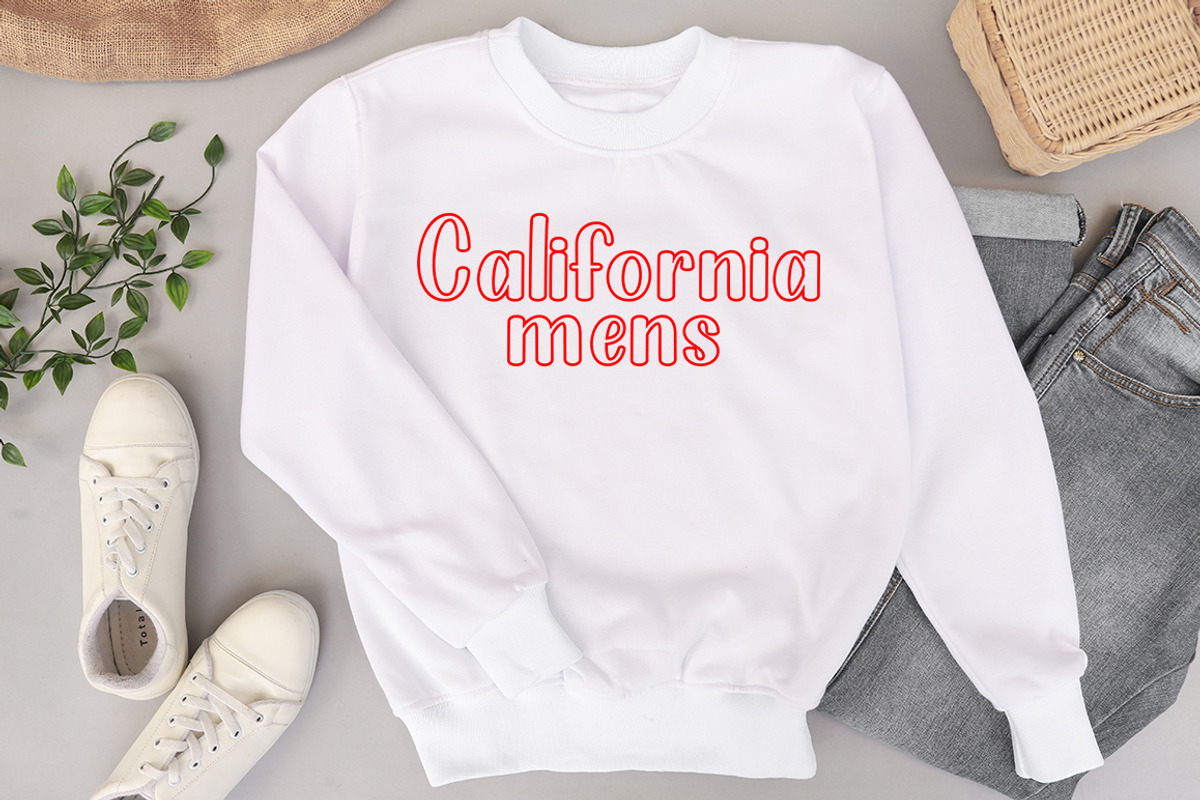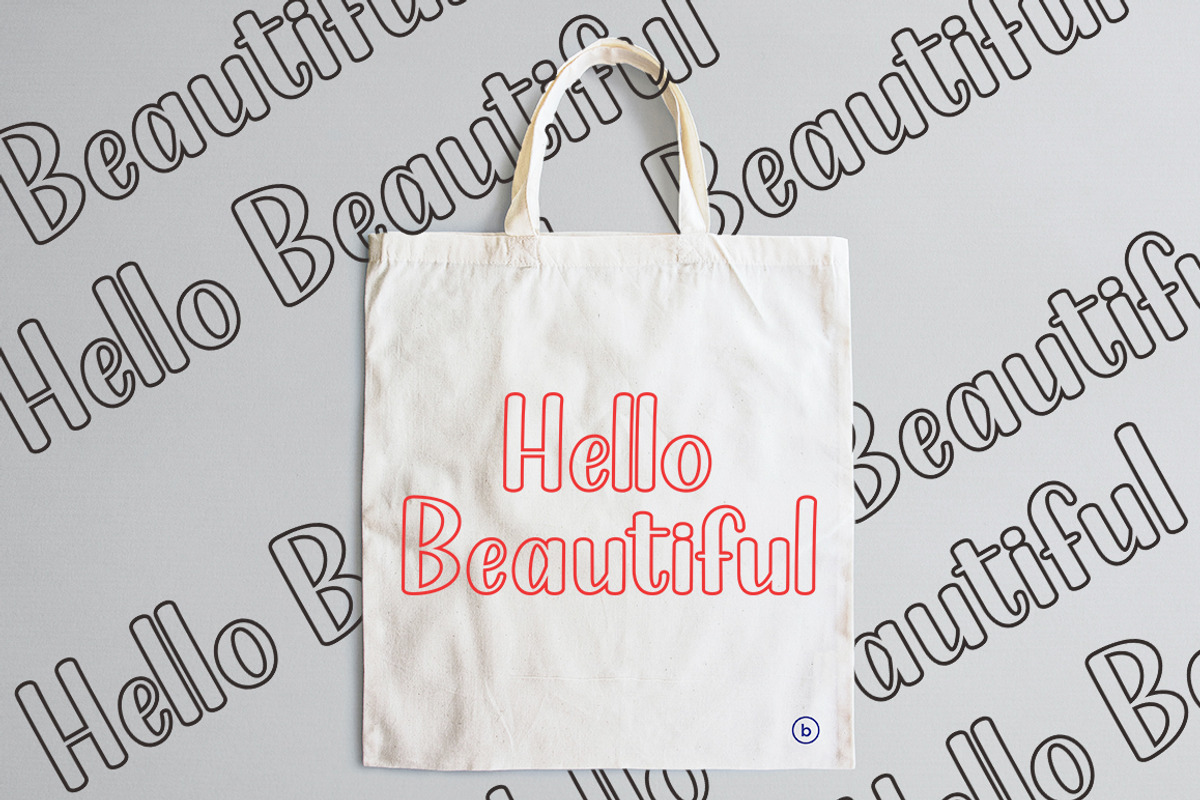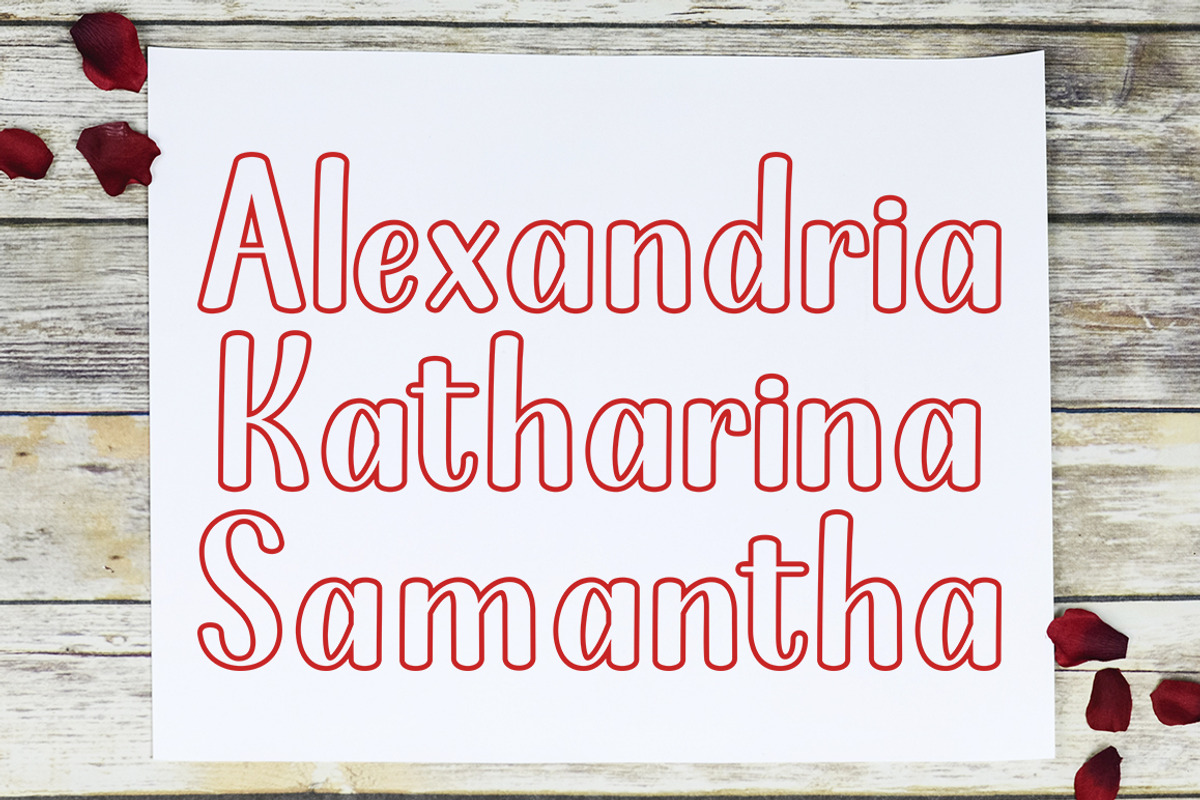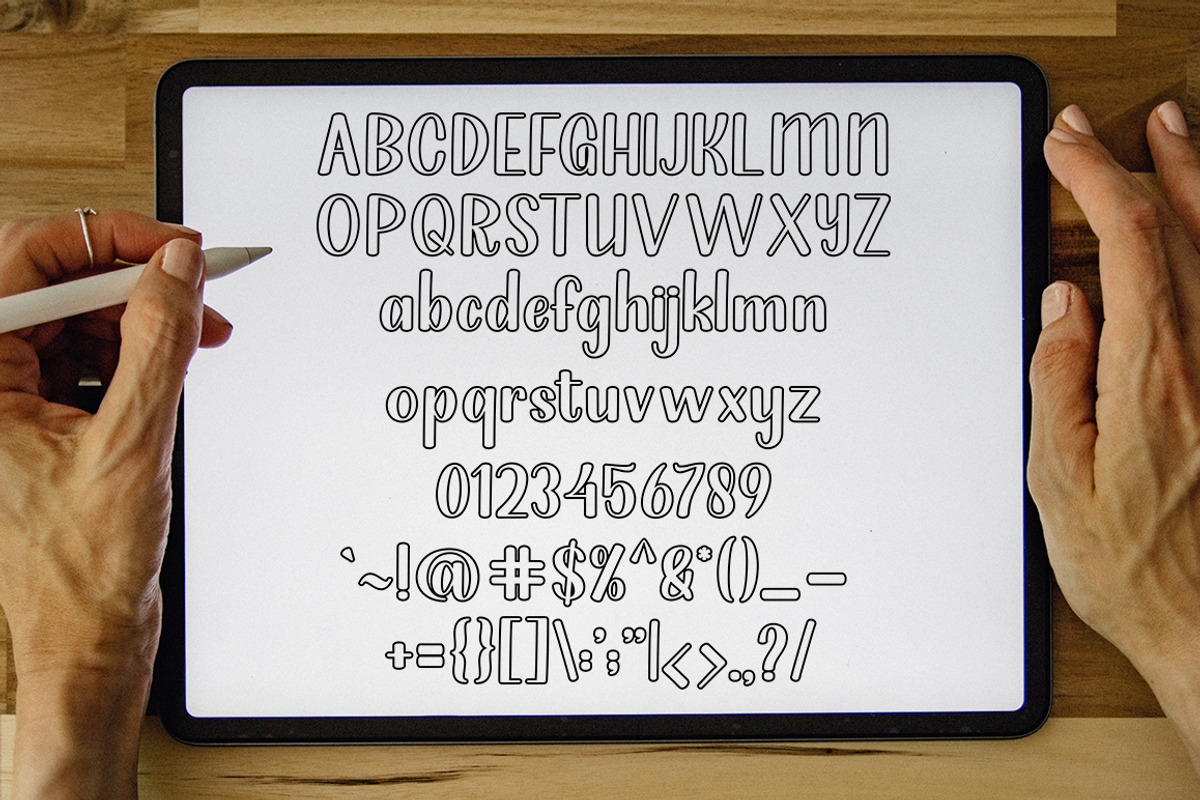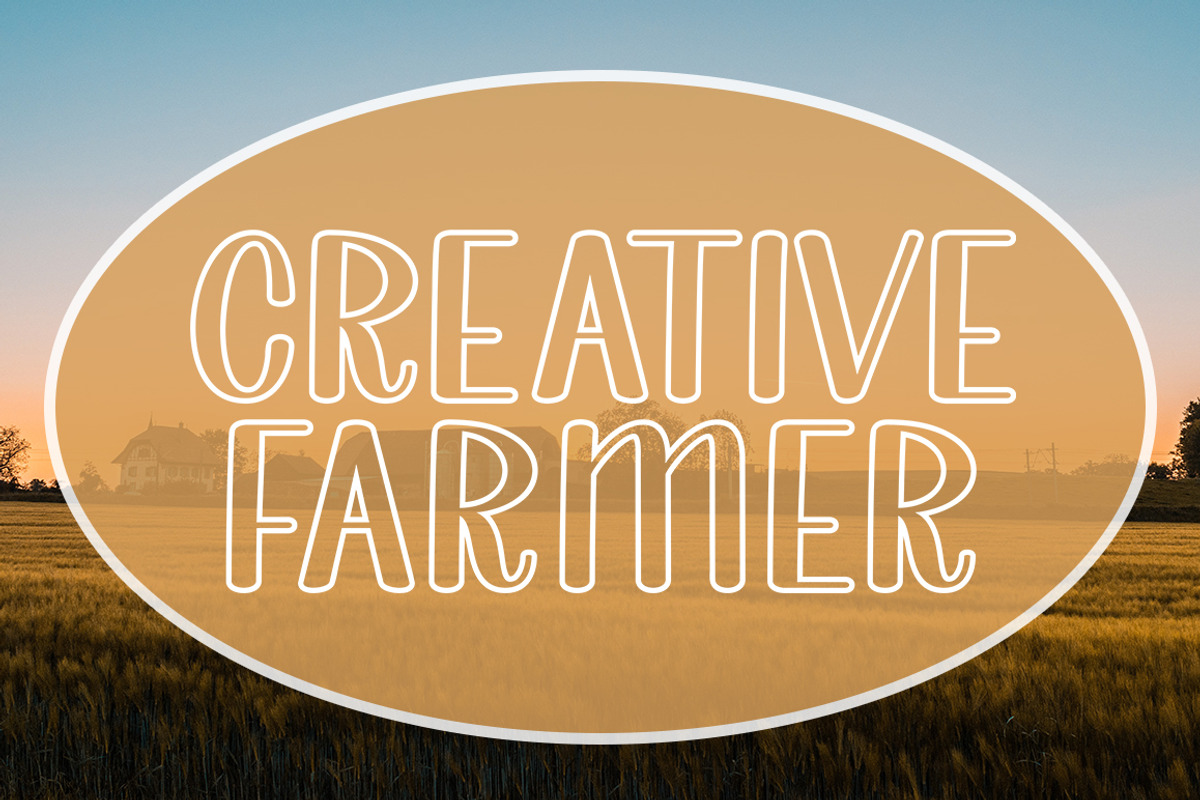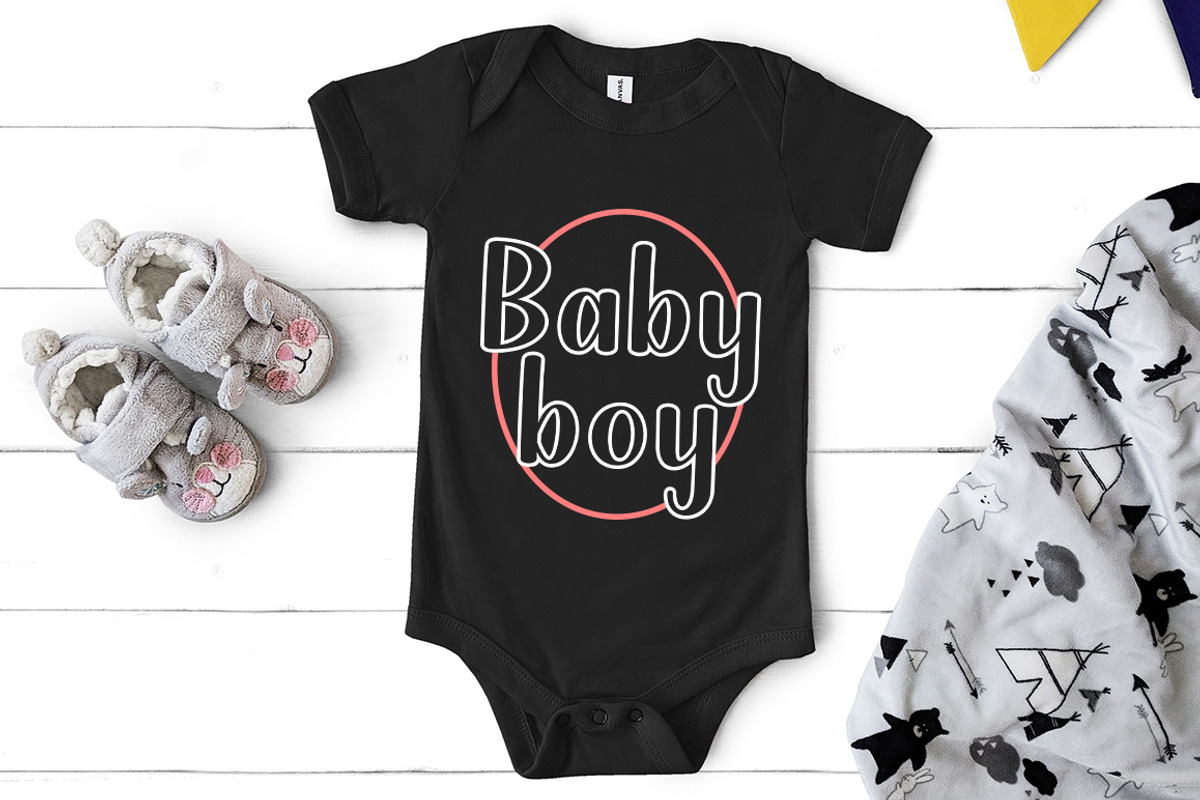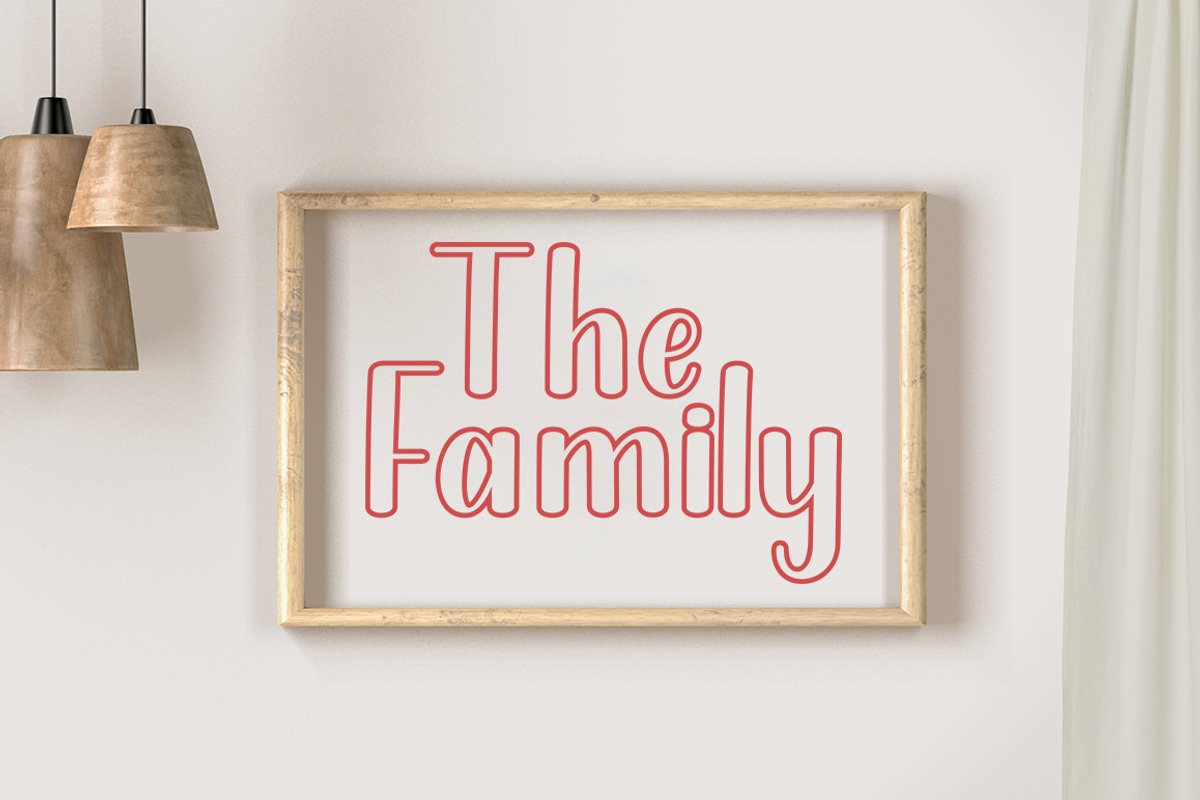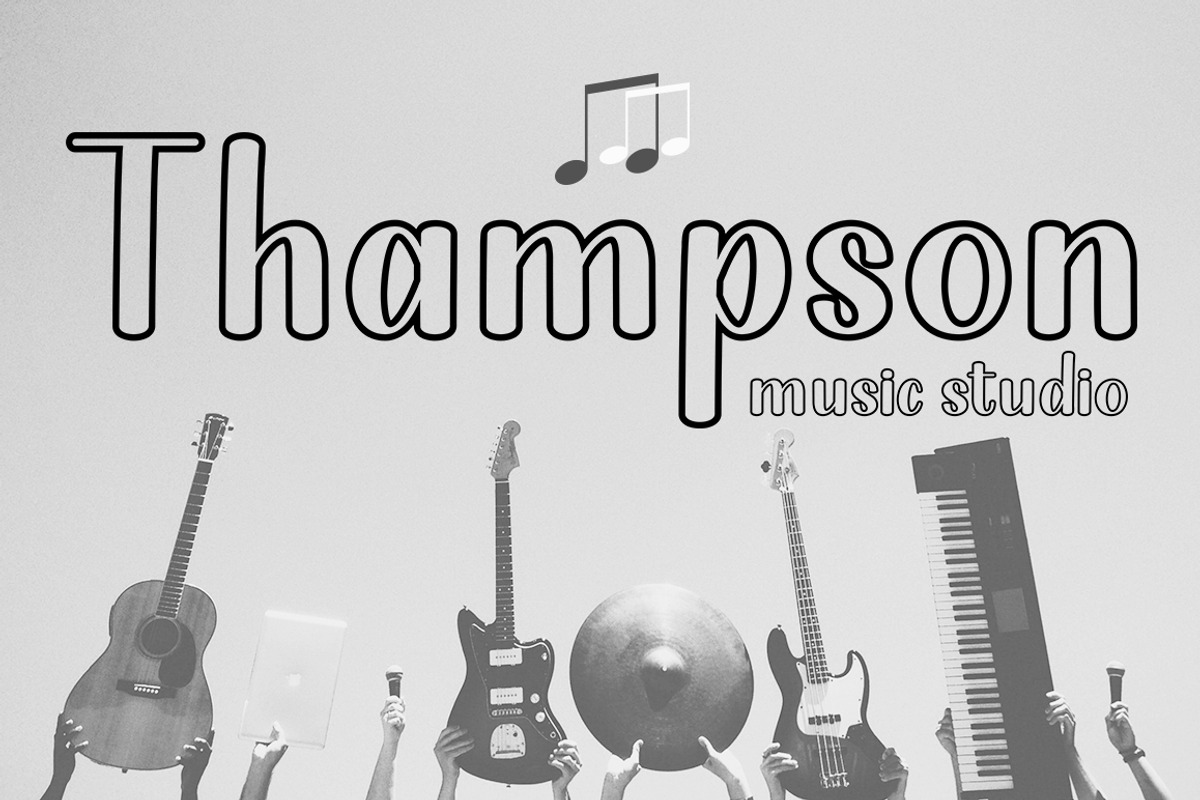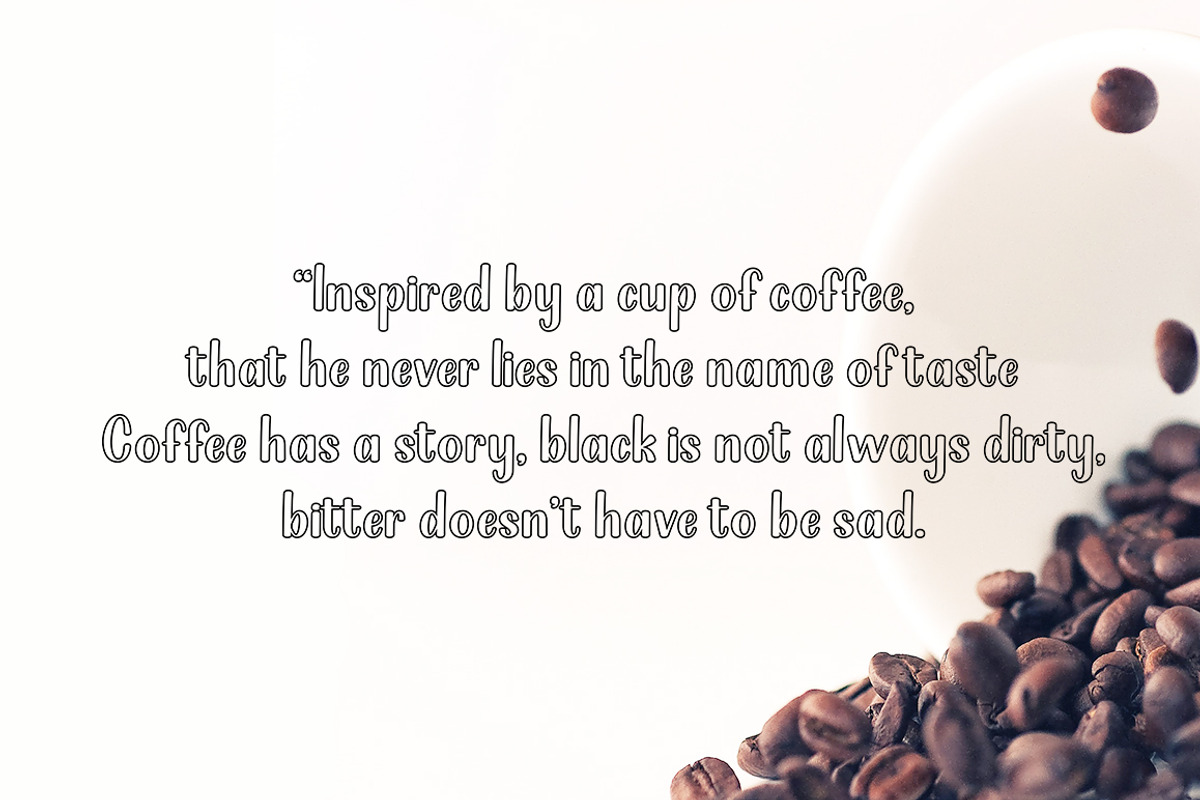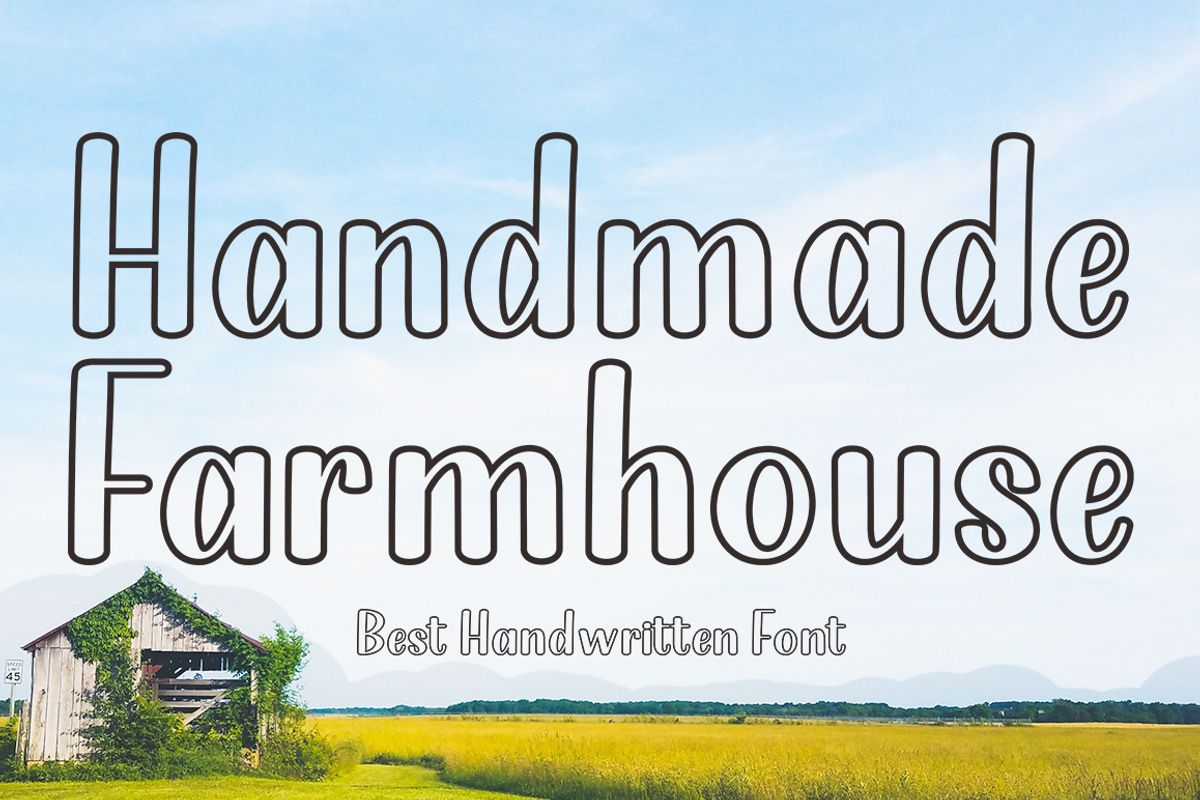
Handmade Farmhouse Outline
Handmade Farmhouse Outline is an warm and cozy handwritten font, carefully handcrafted to become a true favorite. It can be used for various purposes such as logos, invitations, headings, t-shirts, letterhead, signage, labels, news, posters, badges and so much more.